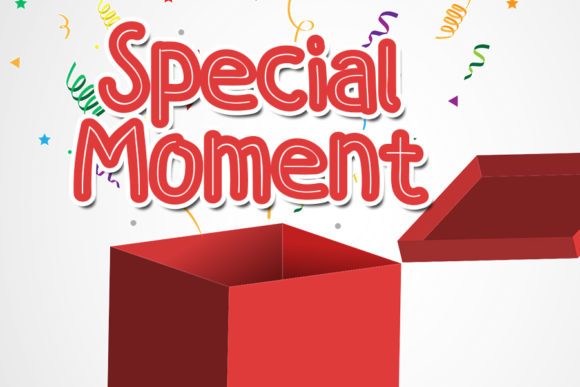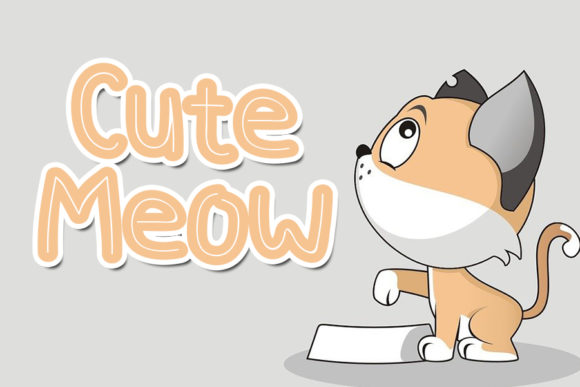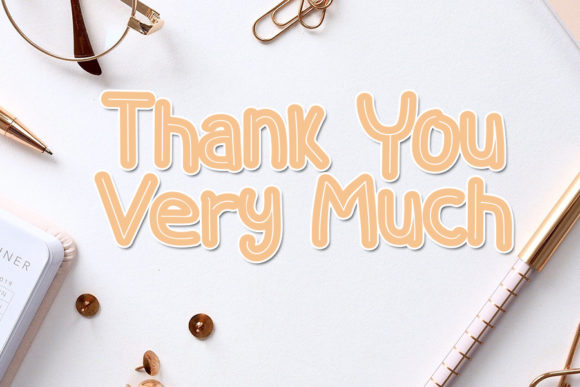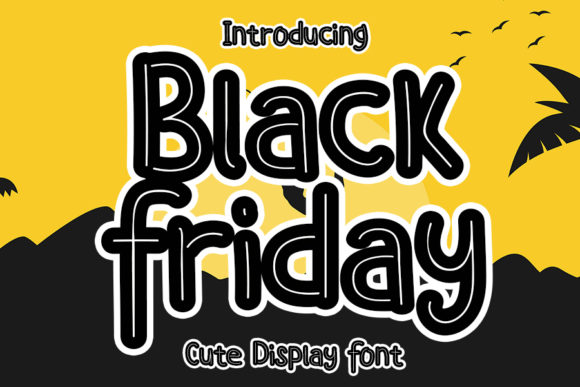
The Ultimate Guide to Black Friday Font: A Fun and Quirky Display Font
I’ll never forget the time I was working on a project for a client who wanted a font that was a little bit quirky, a little bit fun, and a lot of personality. I scoured the internet, tried out dozens of fonts, but nothing seemed quite right. That was until I stumbled upon the Black Friday Font. It’s a game-changer! In this article, I’ll share my experience with this amazing font, its features, and how to make the most of it.
An Honest Review of Black Friday Font
So, what makes Black Friday Font so special? Let’s dive into the good stuff! 😊
- ✨ Unique and quirky design: This font stands out from the crowd with its distinctive style that’s perfect for making a statement.
- ✅ Highly versatile: Black Friday Font looks great in a wide range of contexts, from posters and flyers to social media graphics and website headers.
- 💥 Attention-grabbing: The font’s bold and playful design is guaranteed to grab attention and make your message stand out.
Of course, no font is perfect, and Black Friday Font has a few minor quirks:
- 🤔 Limited legibility at small sizes: As with many display fonts, Black Friday Font can be a bit tricky to read at very small sizes.
- ⚠️ Not suitable for body text: This font is best used for headlines and titles, rather than large blocks of text.
- Experiment with OpenType features like ligatures and stylistic alternates to add some extra flair to your text.
- Take advantage of advanced typography features like glyphs and OpenType styles to customize your text.
The Story Behind Black Friday Font
Black Friday Font was designed with one goal in mind: to create a fun, quirky font that’s perfect for grabbing attention. While the designer’s story might be fictional, it’s easy to imagine a creative soul pouring their heart and soul into crafting a font that’s equal parts playful and professional.
| What is Black Friday Font best used for? | Black Friday Font is perfect for display purposes, such as titles, headings, and short text snippets. It’s not recommended for body text or small font sizes. |